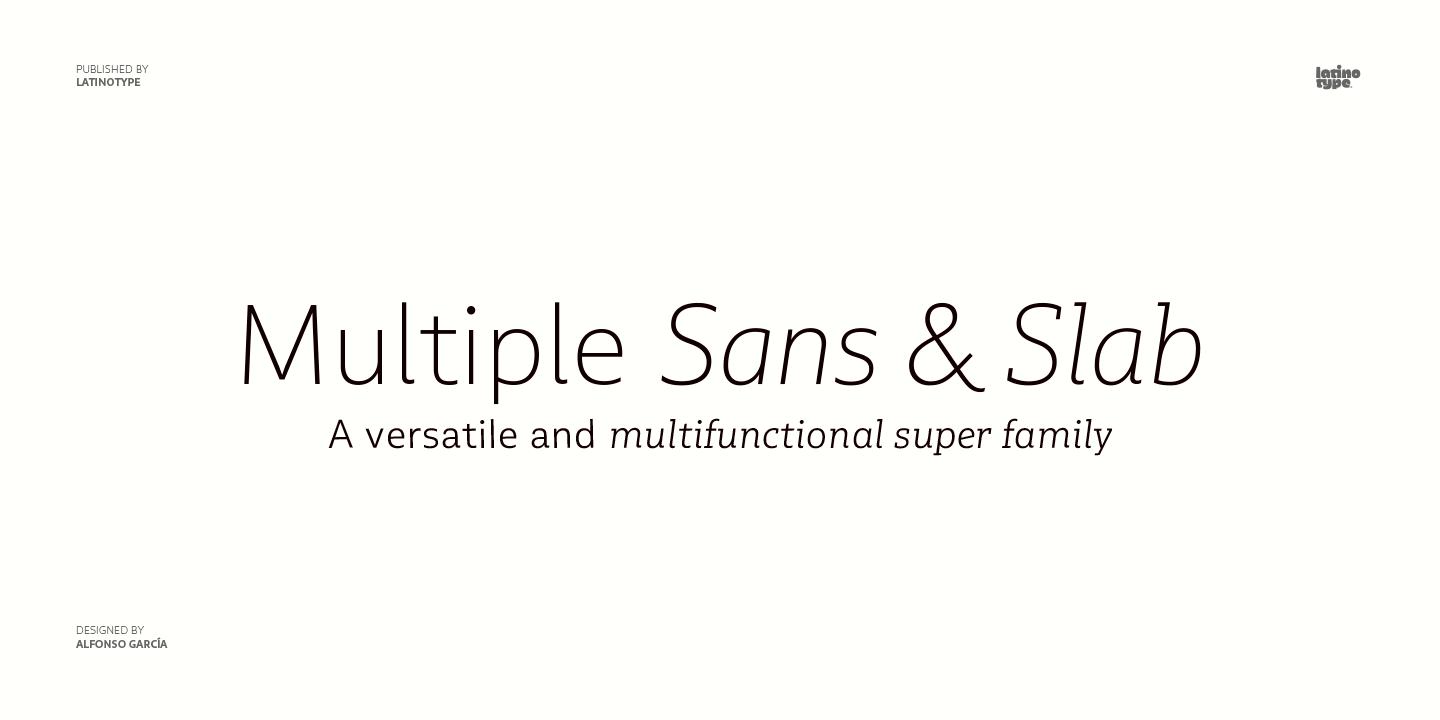
Multiple Font is a versatile and modern typeface designed to adapt seamlessly across a variety of design projects. Whether it’s branding, editorial content, web design, or packaging, this font brings clarity and style.
What makes Multiple Font Free Download so exciting is its clean lines and balanced proportions that offer excellent readability while maintaining a professional and contemporary look.
The Multiple Font family typically includes various weights and styles, such as Light, Regular, Medium, and Bold, giving designers the flexibility to create sophisticated and dynamic typographic hierarchies.
Whether you’re working on logos, marketing materials, or digital interfaces, Multiple Font Free Download ensures your designs look polished and cohesive across all platforms.